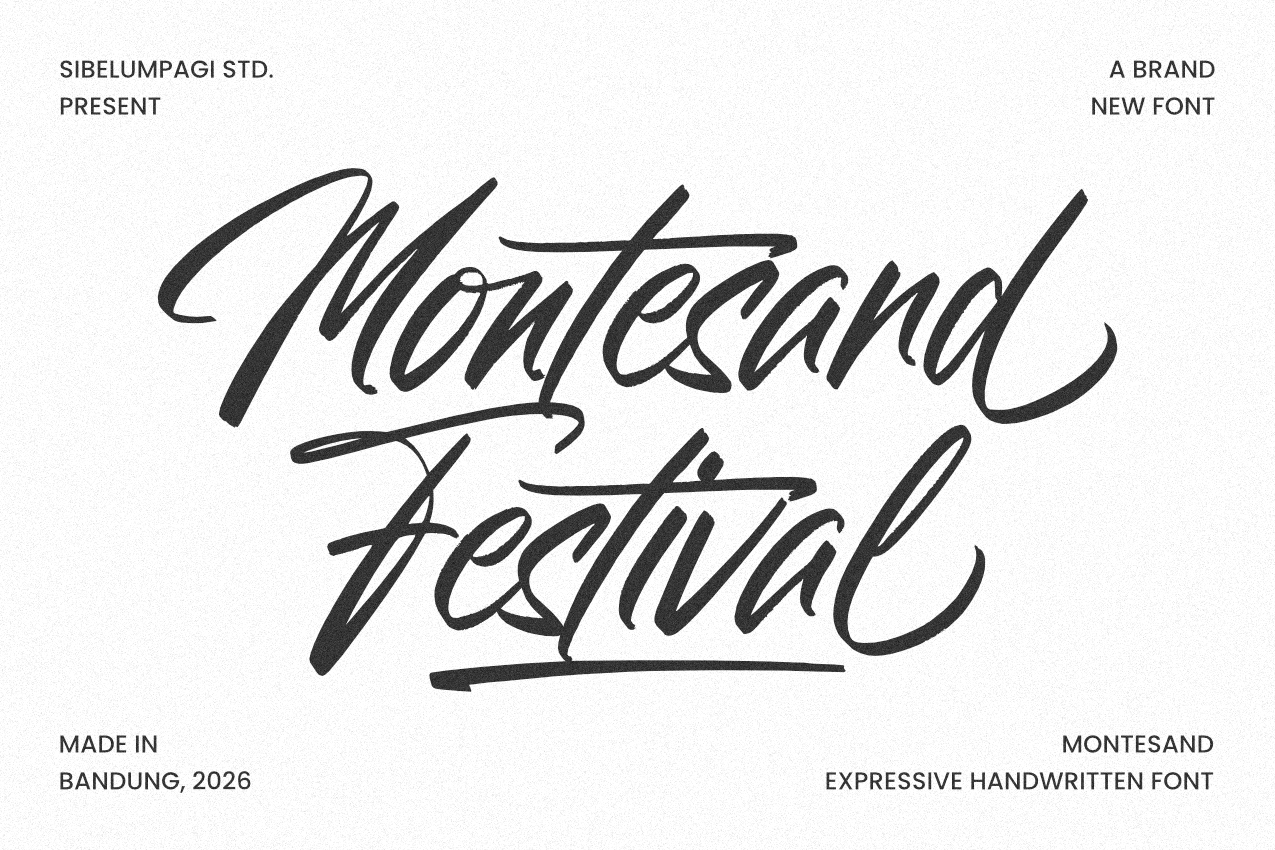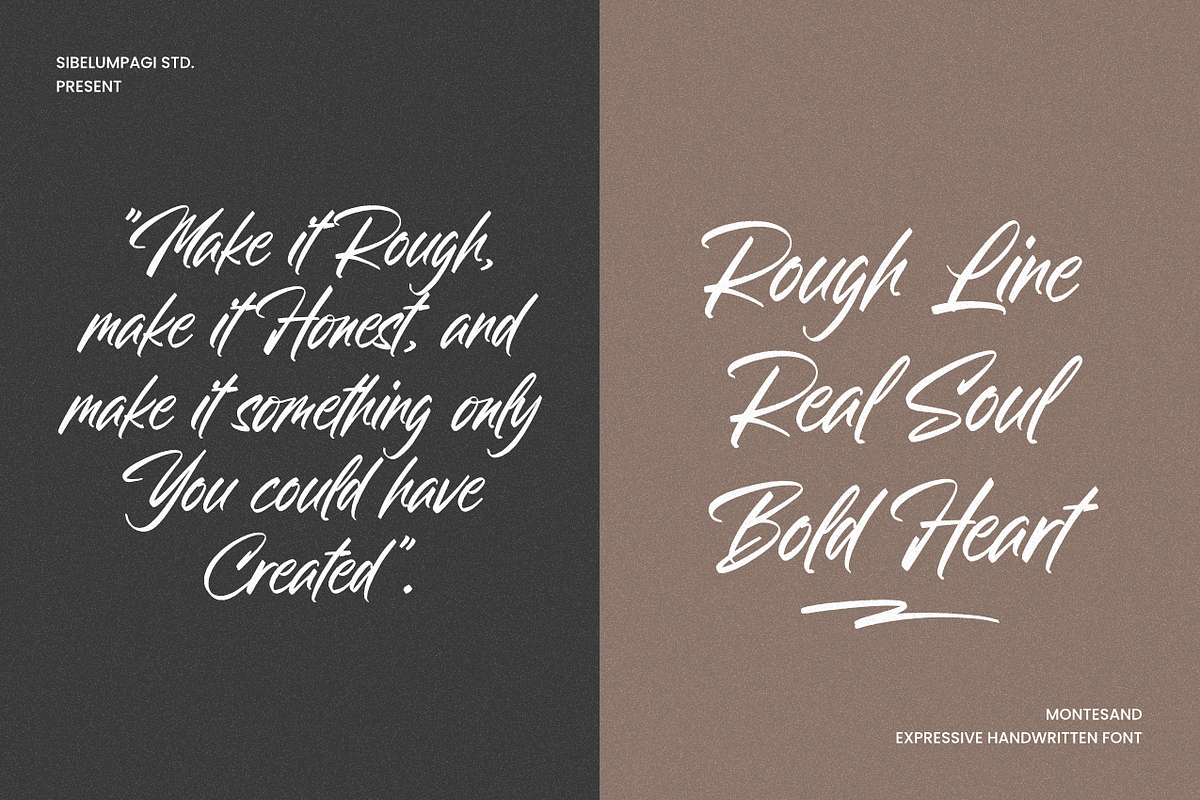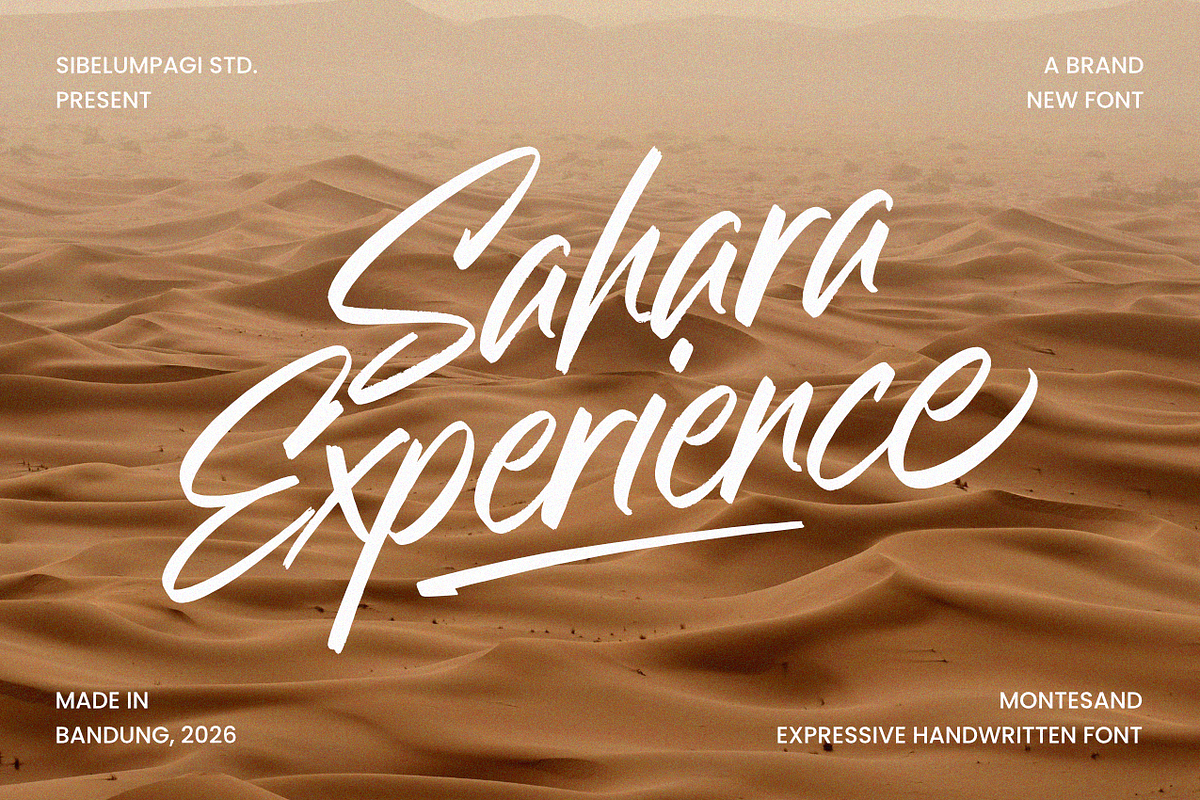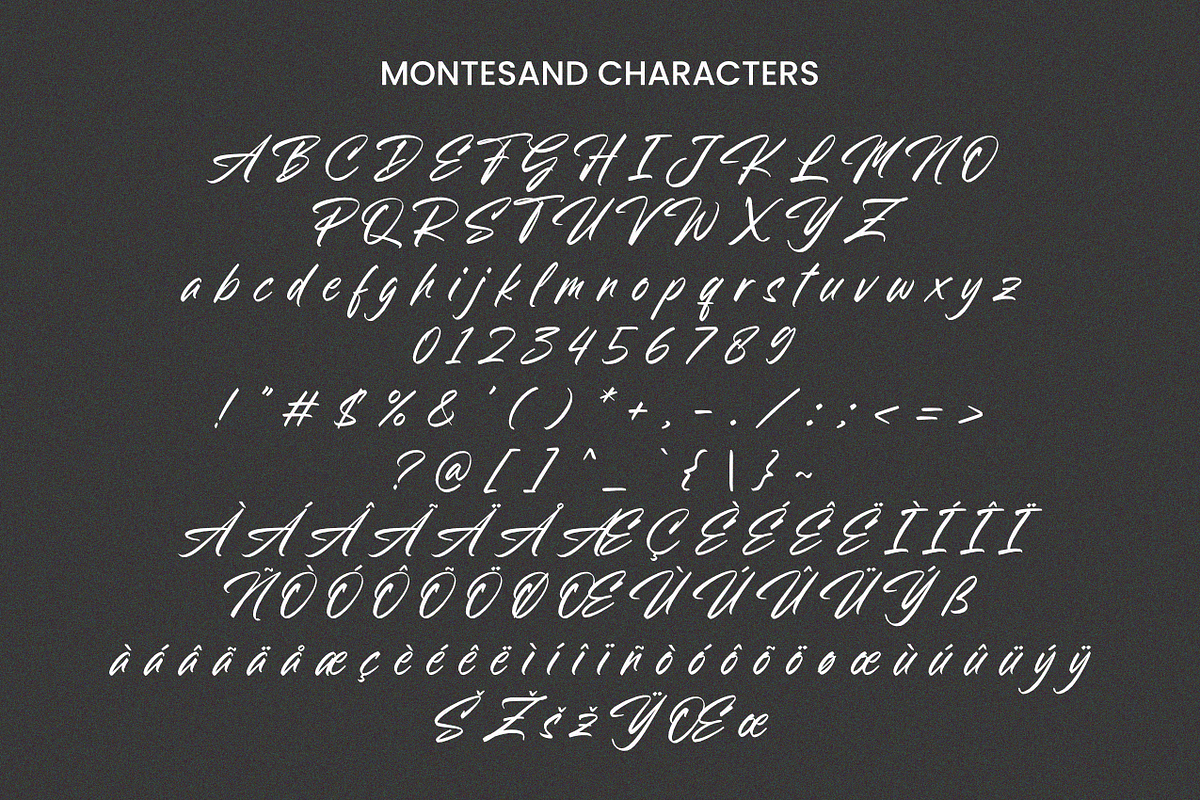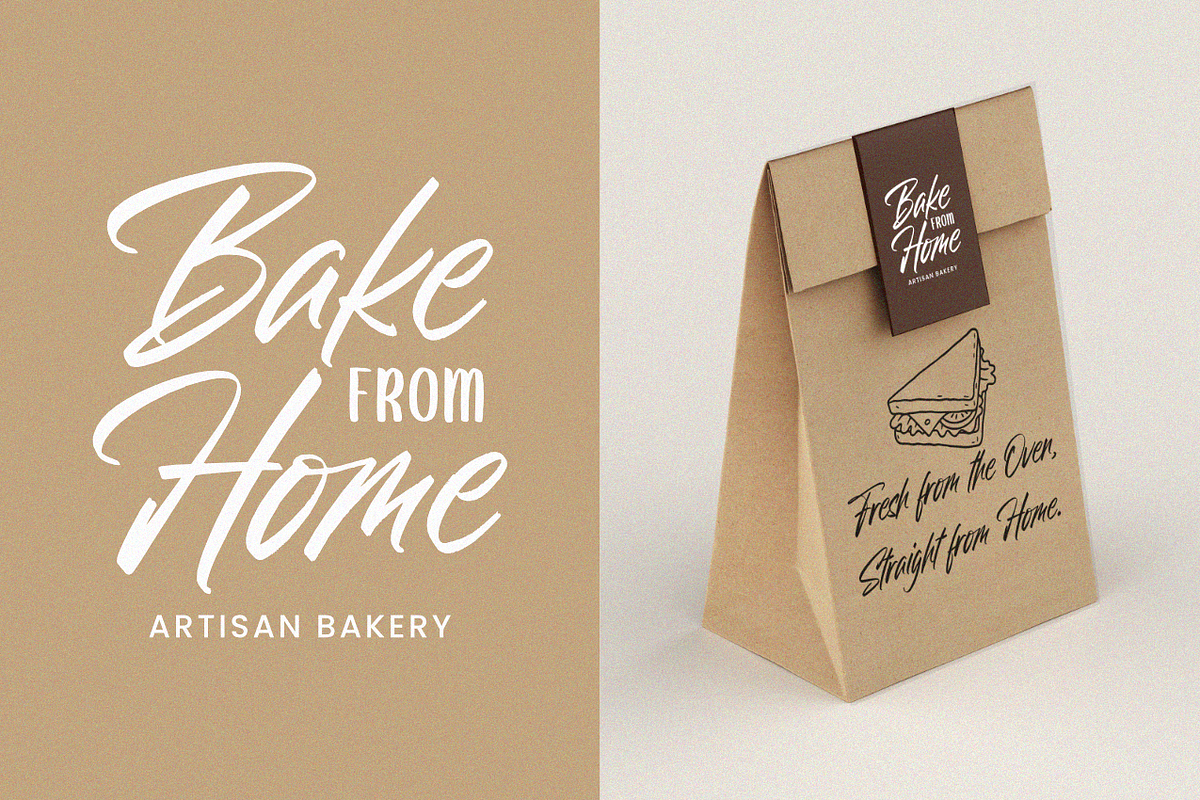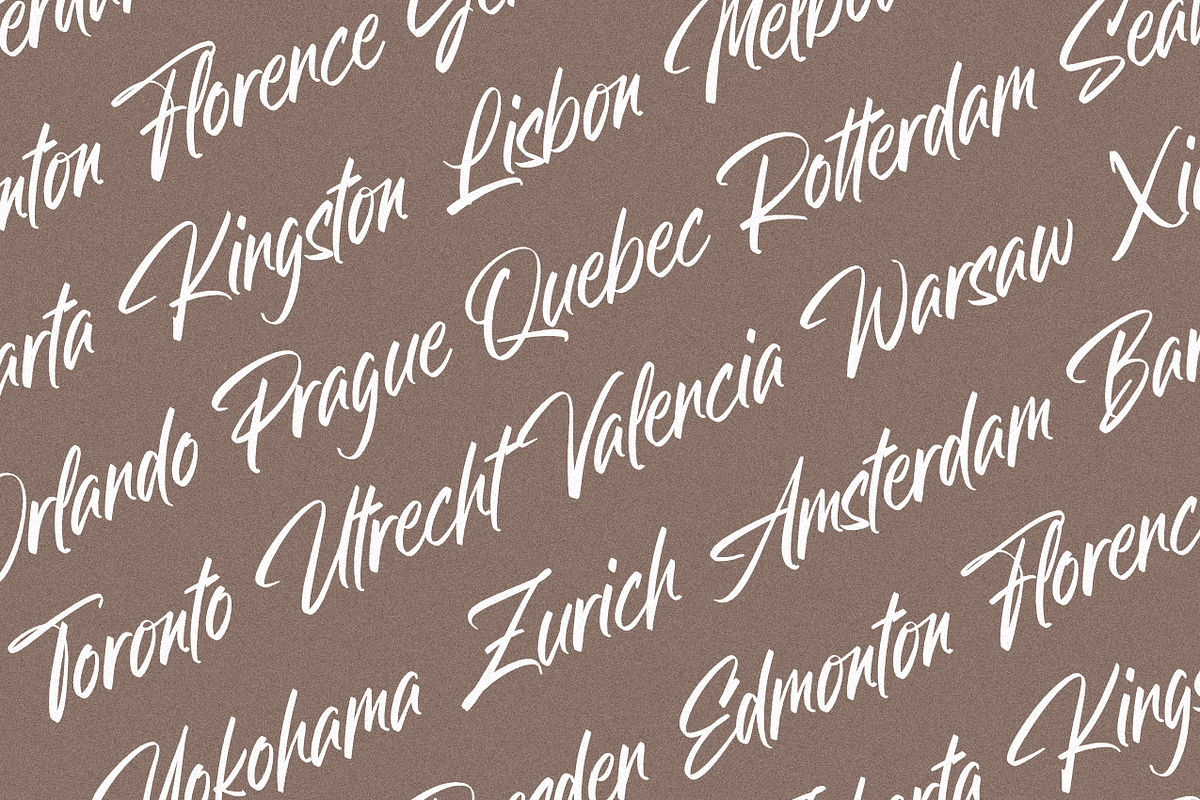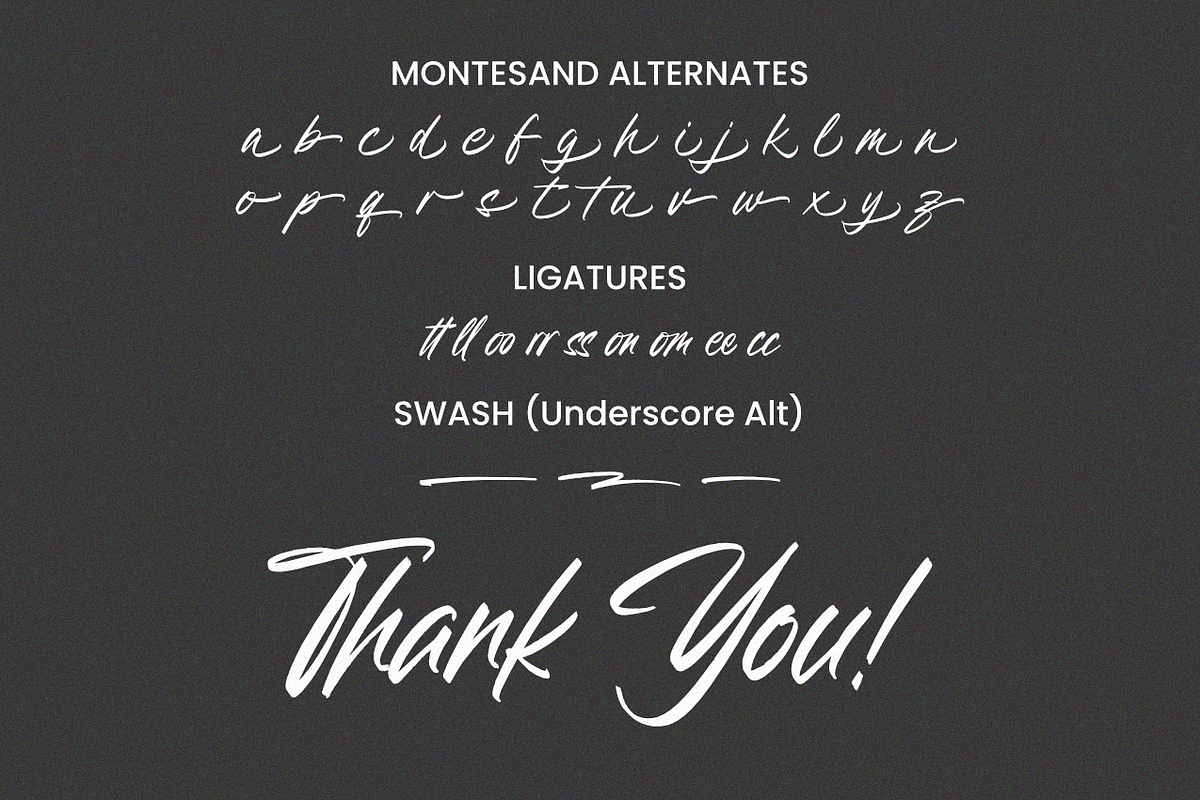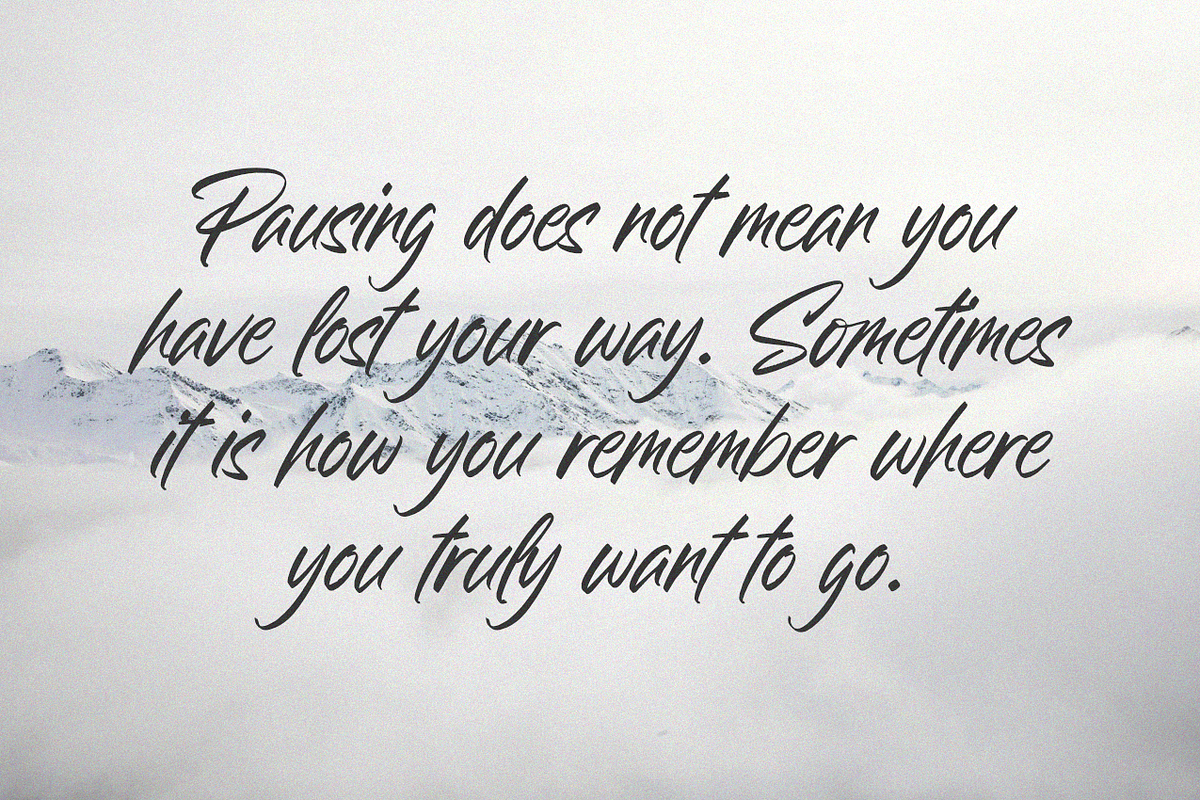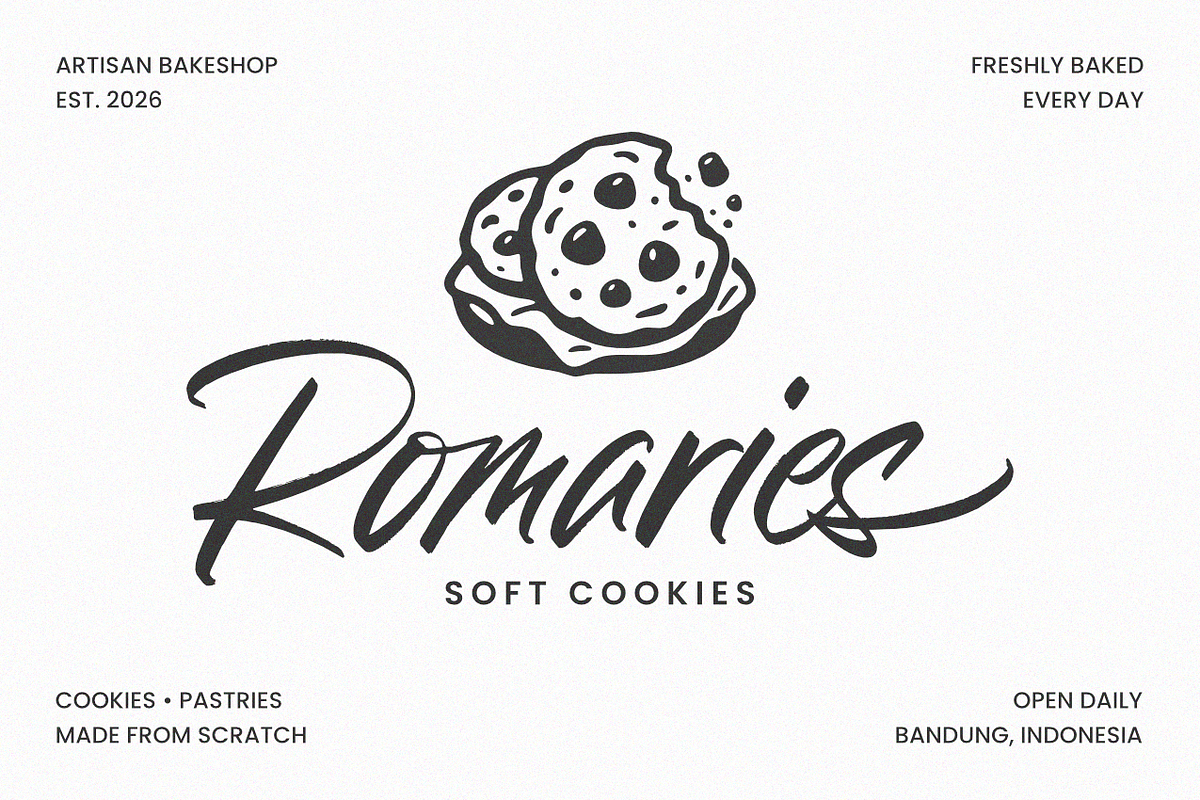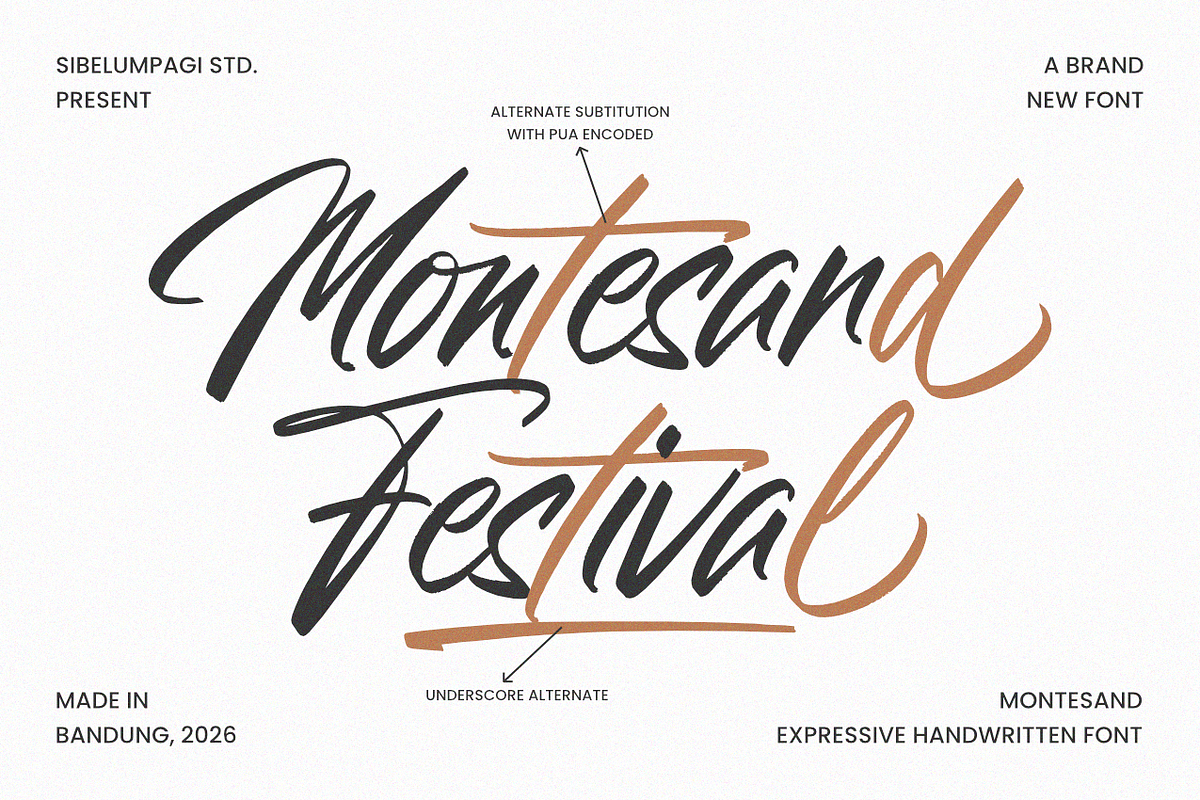
Montesand - Handwritten Font
Montesand is an expressive handwritten font inspired by spontaneous brush lettering and the natural movement of writing by hand. Built with energetic strokes, sharp gestures, and an intentionally imperfect character, it brings a strong sense of personality to every word.
Its loose rhythm and dynamic letterforms give Montesand a confident, handmade look without feeling overly polished or formal. The result is a typeface that feels personal, bold, and full of movement — especially when used at large display sizes.
Montesand works beautifully for branding, posters, packaging, apparel, merchandise, artwork, editorial titles, social media graphics, quotes, and other creative projects that need an expressive handwritten touch.